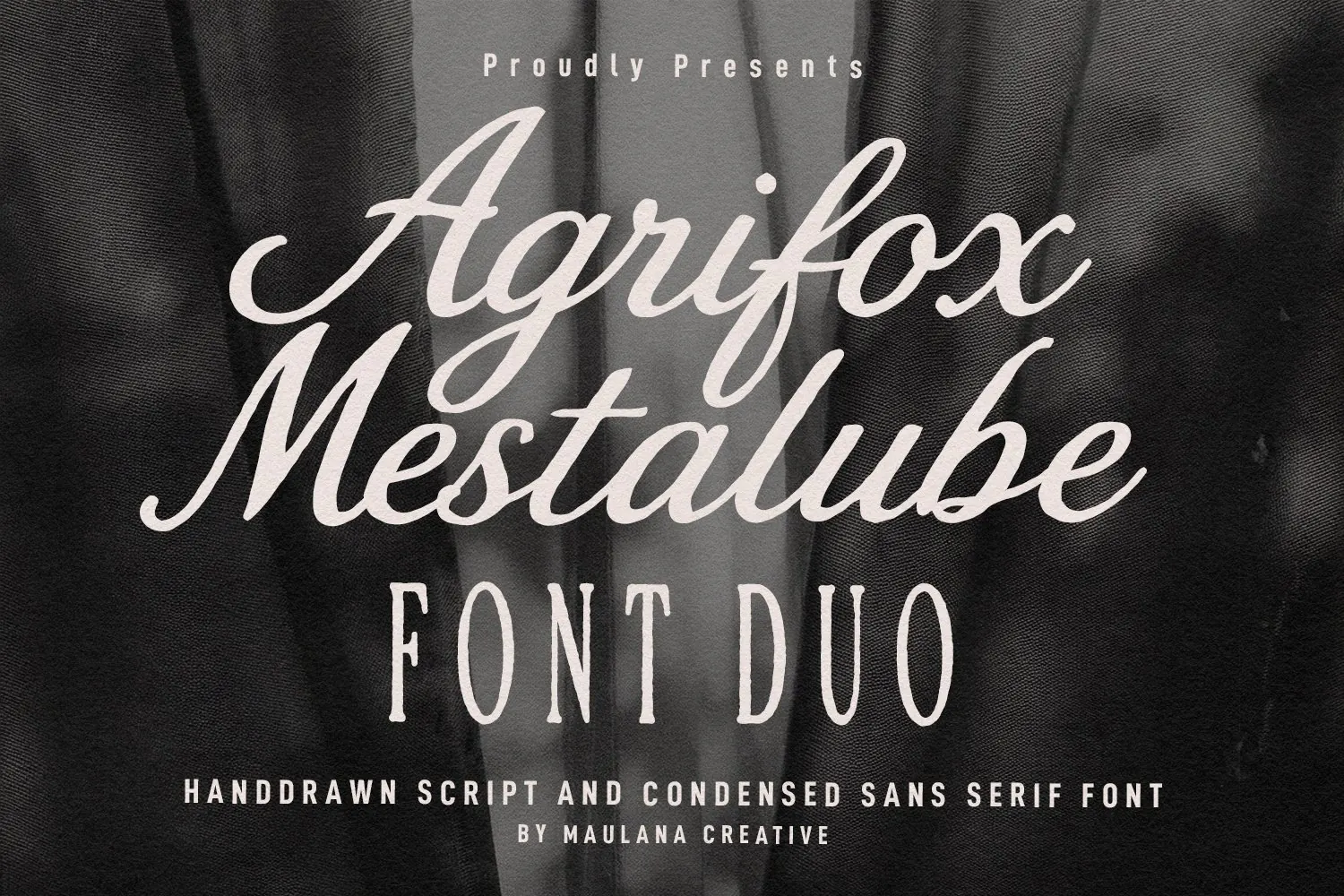
Agrifox Mestalube is a classic font duo that combines a fluid handdrawn script with a bold, condense… Read more
Agrifox Mestalube Script
Agrifox Mestalube Serif